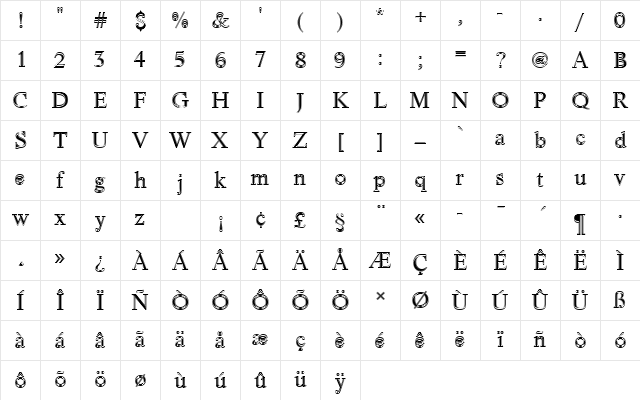
LifeTRegIn1 Regular
Design Context for LifeTRegIn1
LifeTRegIn1 is a composed and adaptable typeface that performs quietly and consistently across a wide range of design contexts.
Pro Tip: Use LifeTRegIn1 in both headline and body roles to test its range before committing to a single application.